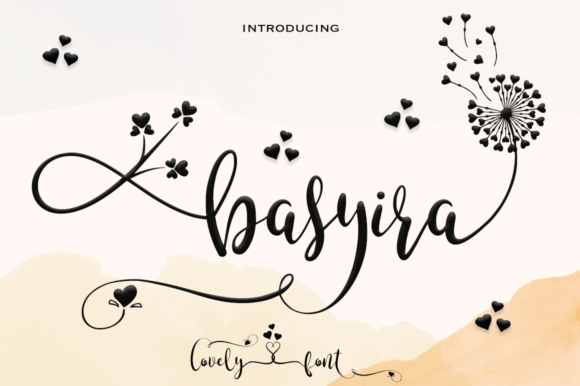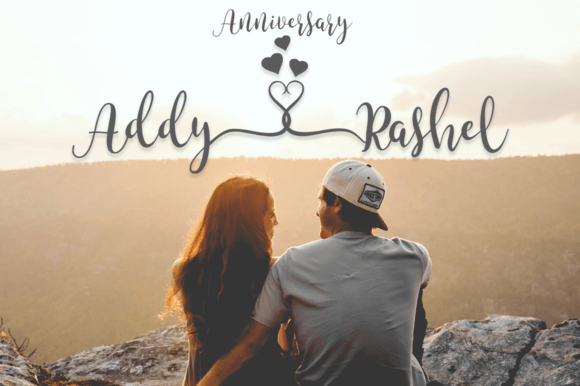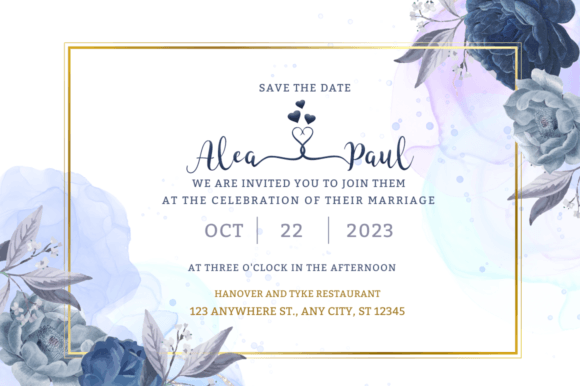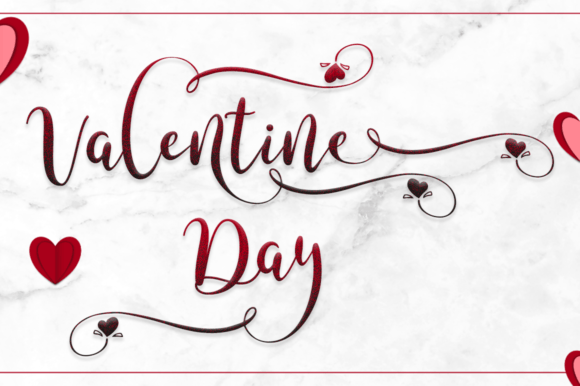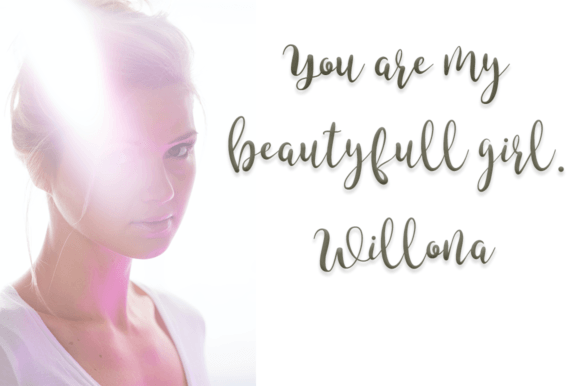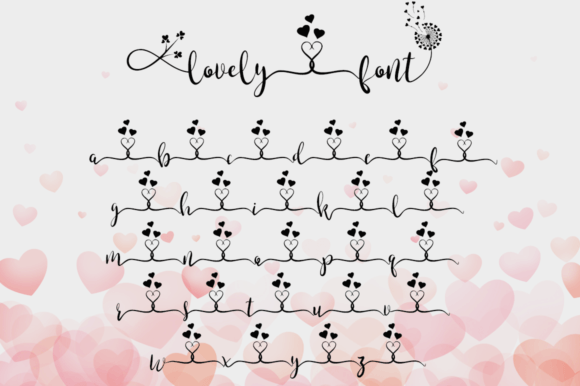
Introduction to Basyira Font
As a designer, there’s nothing quite like the thrill of bringing a creative project to life. You’re brainstorming ideas, experimenting with colors, and perfecting the perfect font – and that’s when you stumble upon it: the perfect script font that elevates your design from good to great. For many designers, that perfect font is the Basyira Font, a stunning and elegant script font that adds a touch of sophistication to any design.
Whether you’re creating a wedding invitation, a heartfelt thank you card, or a logo that screams your brand’s personality, the Basyira Font is an invaluable design resource. Its high-quality strokes and fluid lines make it a go-to choice for designers looking to add a handwritten touch to their work. And the best part? You can download the Basyira Font for free, making it an accessible and transparent background for your creative projects.
Key Features of Basyira Font
- Unique, hand-drawn design with intricate details and ornaments, ideal for creative projects requiring a high level of sophistication.
- Perfect for designers working on creative projects, such as book covers, magazine layouts, and advertising materials, requiring a unique and eye-catching font.
Honest Review: Basyira Font
As a designer, I’m always on the lookout for unique and high-quality design resources to elevate my creative projects. The Basyira Font caught my attention with its intricate details and elegant style.
What works well about the Basyira Font is its versatility. I was able to use it for a variety of projects, from branding to editorial content, and it looked great in both print and digital formats ✨. The font is also free to download, making it an excellent resource for designers on a budget.
However, I did encounter some limitations. The font can be a bit difficult to read at small sizes, and the character set is limited compared to other fonts ⚠️.
Overall, I’m impressed with the Basyira Font and would recommend it to designers looking for a unique and elegant font for their creative projects. With its high-quality design and free download option, it’s a great resource to have in your design arsenal.
Tips for Getting the Most Out of Basyira Font
Use the Basyira Font in conjunction with a transparent background to create a clean and modern design. Experiment with different font sizes and styles to add visual interest to your design. Use the font in combination with other design elements, such as images and shapes, to create a cohesive and effective design.
The Basyira Font is a high-quality design resource that can be used in a variety of creative projects, including logos, business cards, and website design. Its clean and modern design makes it perfect for use in digital design, marketing materials, and other visual communications.